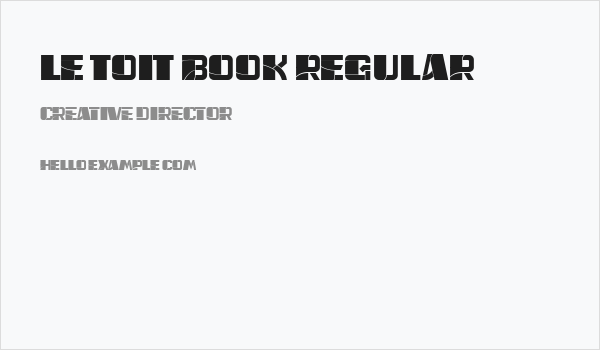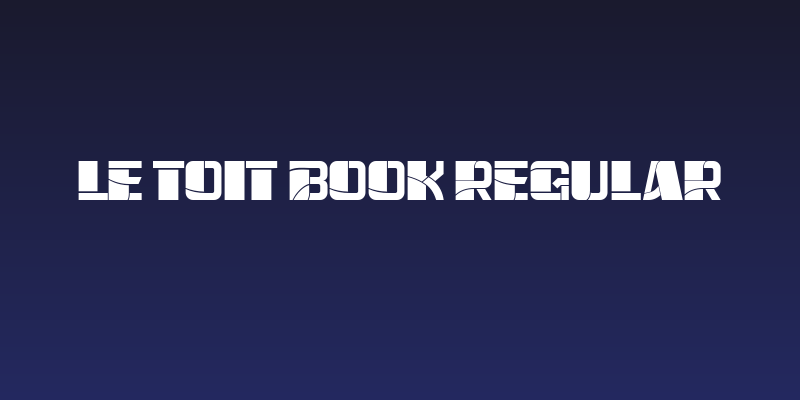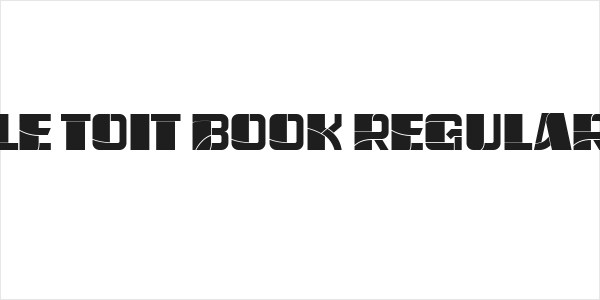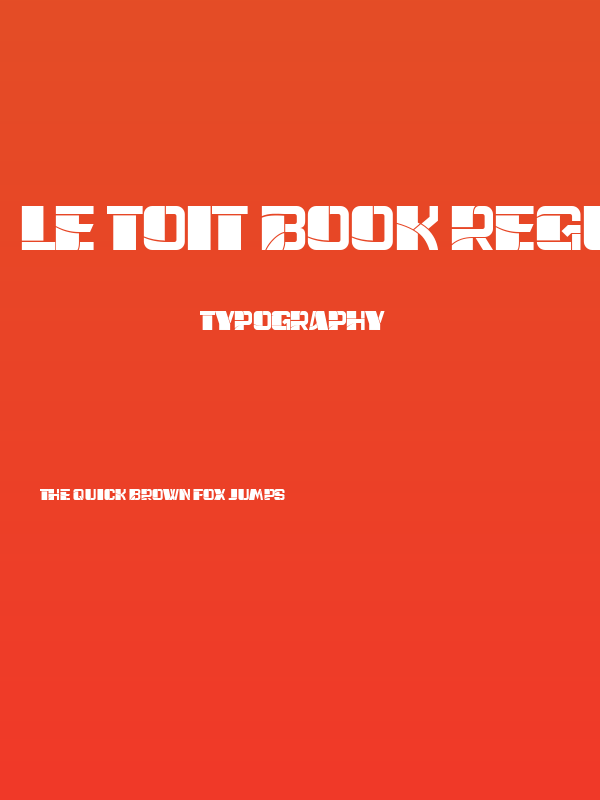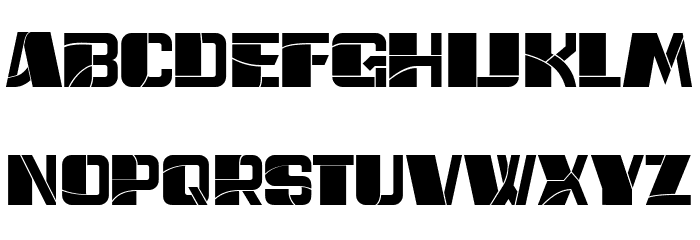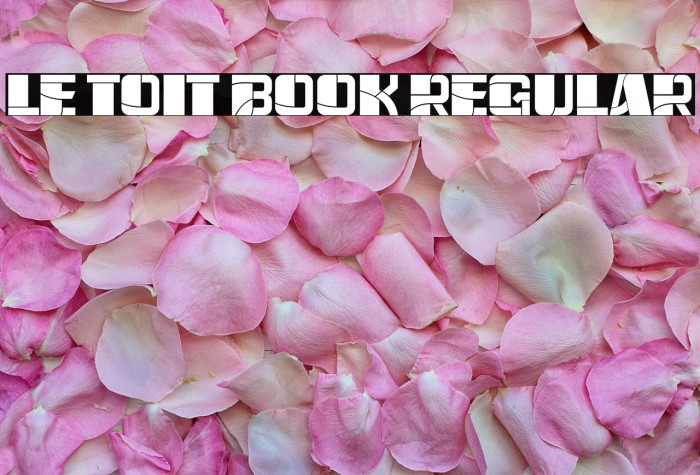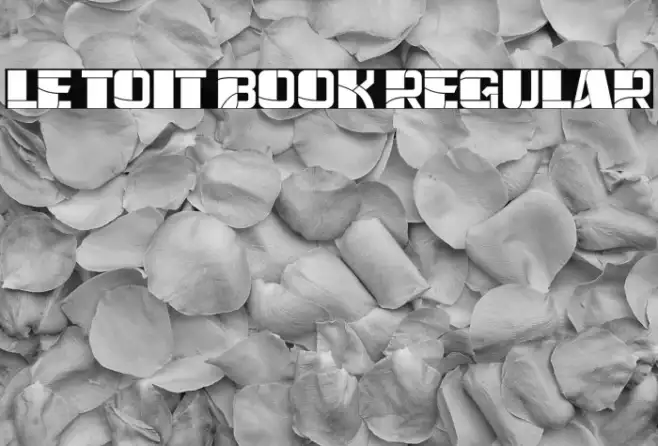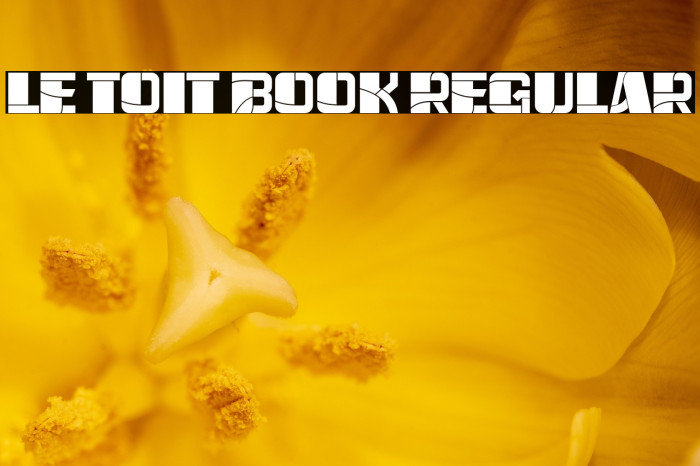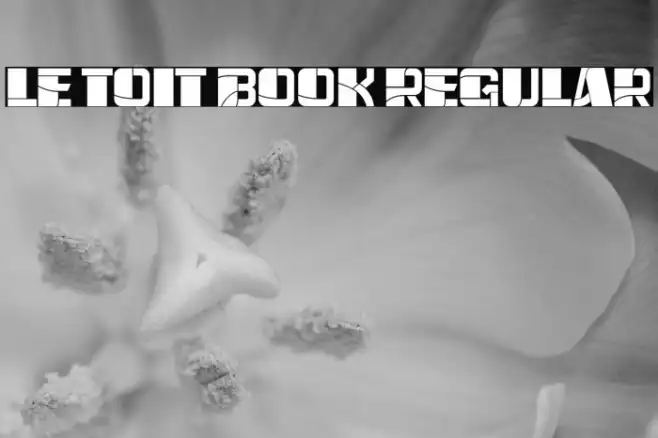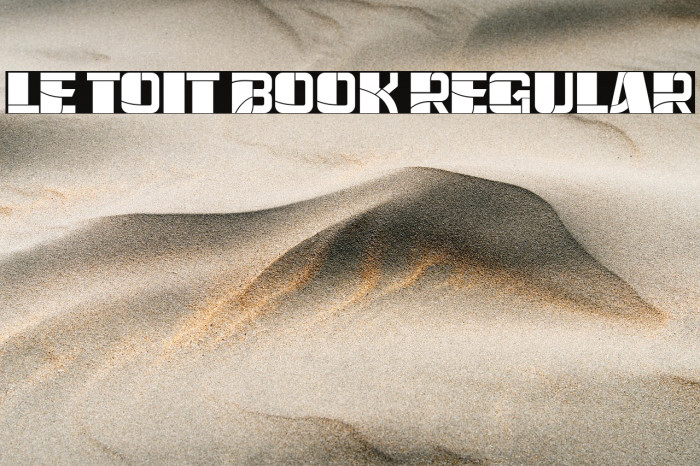
Le Toit Book Regular Font
Le Toit Book Regular Description
This font features a bold, geometric design with a modern and artistic flair. The characters are constructed with solid, block-like shapes, incorporating unique cutouts and angles that create a dynamic and visually striking appearance. The use of negative space within each letter adds an element of intrigue and complexity, making it stand out in any design. The uppercase letters are uniform in height, contributing to a cohesive and structured look. This font is ideal for projects that require a bold statement and a contemporary aesthetic.
| Proposed Projects | Ideal for branding, posters, album covers, and any project needing a bold, artistic touch. |